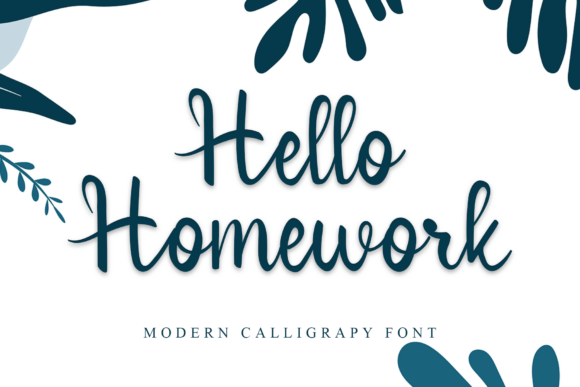
Hello Homework Font: Elevate Your Projects with Elegance and Sophistication
In the realm of typography, fonts play a pivotal role in conveying messages, evoking emotions, and enhancing the aesthetic appeal of any project. Among the myriad of fonts available, the Hello Homework Font stands out as a beacon of elegance and sophistication. This unique and elegant font is specially designed to cater to your diverse needs, making it an indispensable tool for professionals, creatives, and anyone looking to add a touch of class to their work.
The Essence of Hello Homework Font
Hello Homework Font is crafted with a professional hand touch, imbuing it with a distinct character that sets it apart from more conventional fonts. Its design is centered around providing a clean, yet warm and inviting feel, making it versatile enough to be used across various platforms and projects. Whether you’re working on a wedding invitation, a birthday card, or any other form of greeting card, this font promises to elevate your creation, making it more engaging and memorable.
Versatility at Its Best
One of the key features of the Hello Homework Font is its incredible versatility. It is not confined to just one type of project or medium. Instead, it can be seamlessly integrated into a wide array of applications, including:
- Wedding Invitation Cards: Add a touch of romance and sophistication to your wedding invitations, making the first impression of your special day even more memorable.
- Birthday Cards: Personalize birthday greetings with a font that exudes warmth and celebration.
- Party Invitations: From baby showers to graduation parties, Hello Homework Font can be used to create invitations that are both elegant and fun.
- Work Projects: Incorporate this font into your professional projects to add a level of refinement and elegance that is sure to impress.
Why Choose Hello Homework Font?
With so many fonts available, it can be challenging to decide which one is right for your project. Here are several compelling reasons to choose Hello Homework Font:
- Unique and Elegant: Its distinctive design ensures that your projects stand out from the crowd.
- Professional Touch: The font’s professional crafting means it carries a level of quality that is hard to find elsewhere.
- Easy to Read: Despite its elegant design, Hello Homework Font remains clear and easy to read, making it practical for a variety of uses.
- Highly Versatile: Its adaptability across different projects and mediums makes it a valuable addition to any designer’s toolkit.
Tips for Maximizing Impact
To get the most out of Hello Homework Font, consider the following tips:
- Pair with Complementary Fonts: For added visual interest, pair Hello Homework Font with other fonts that complement its style.
- Adjust Size and Color: Experiment with different sizes and colors to ensure the font enhances your project without overpowering it.
- Consider Contrast: Ensure there is sufficient contrast between the text and background to maintain readability.
Hello Homework Font is more than just a typeface; it’s a tool that can transform your projects, adding a layer of elegance and sophistication that engages and impresses. Its versatility, combined with its unique and professional design, makes it an excellent choice for a wide range of applications. Whether you’re a professional designer, a business looking to elevate its brand, or an individual seeking to add a personal touch to your creations, Hello Homework Font is sure to meet and exceed your expectations.